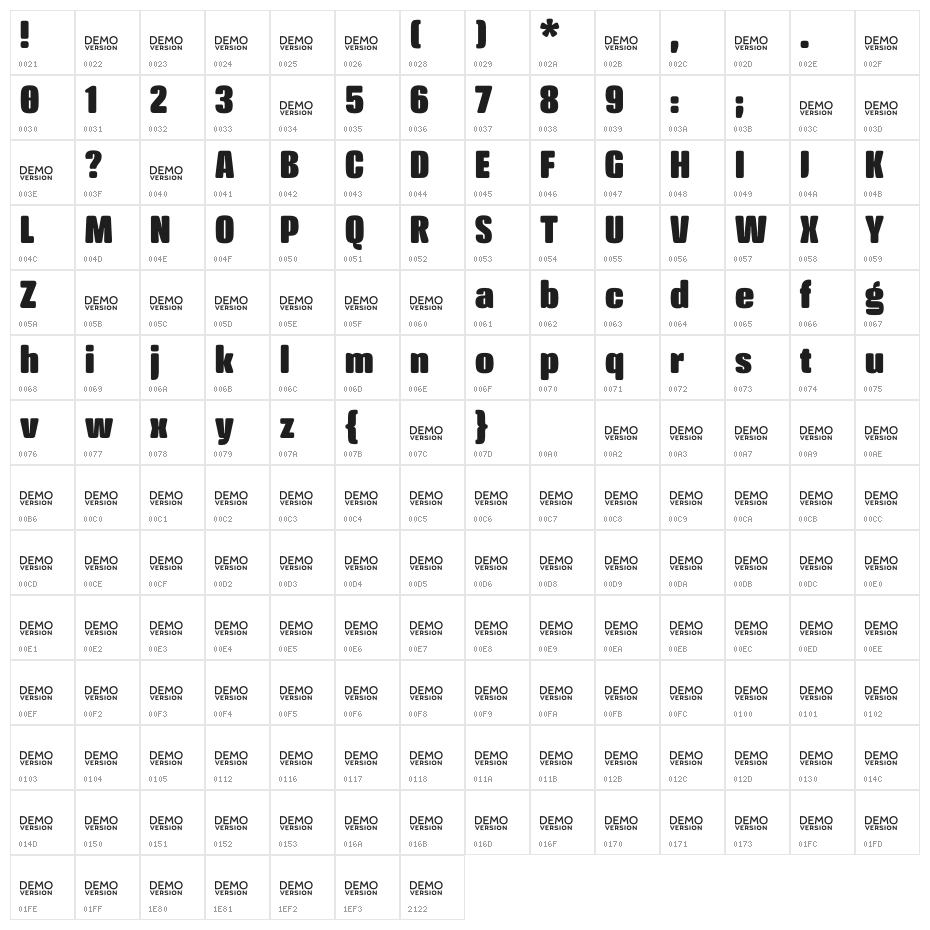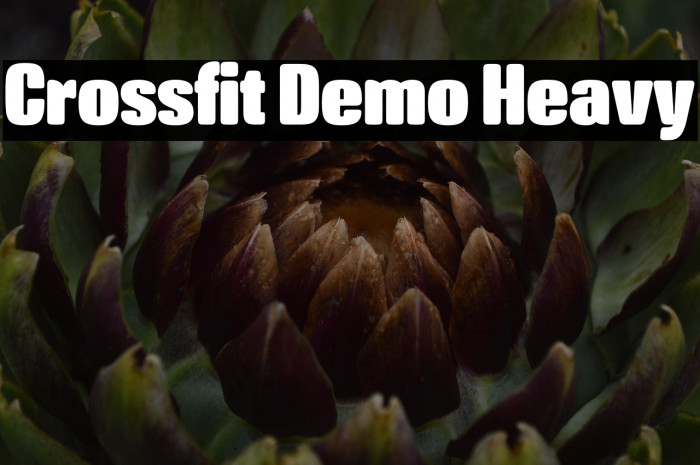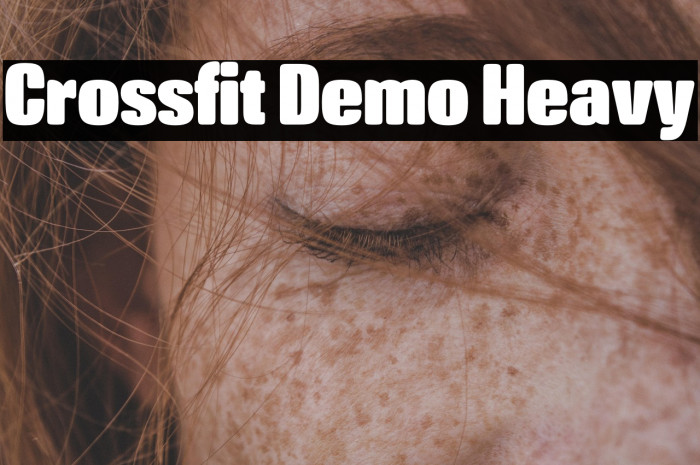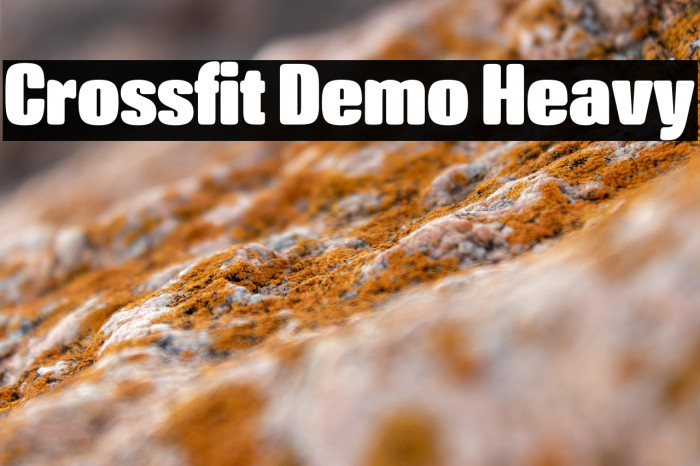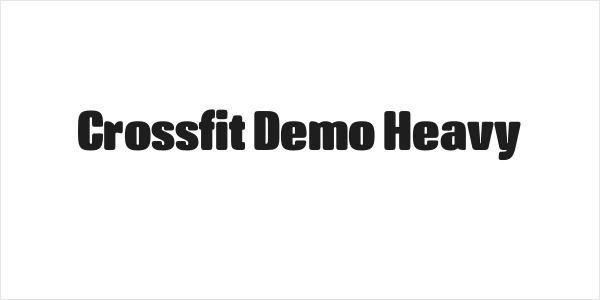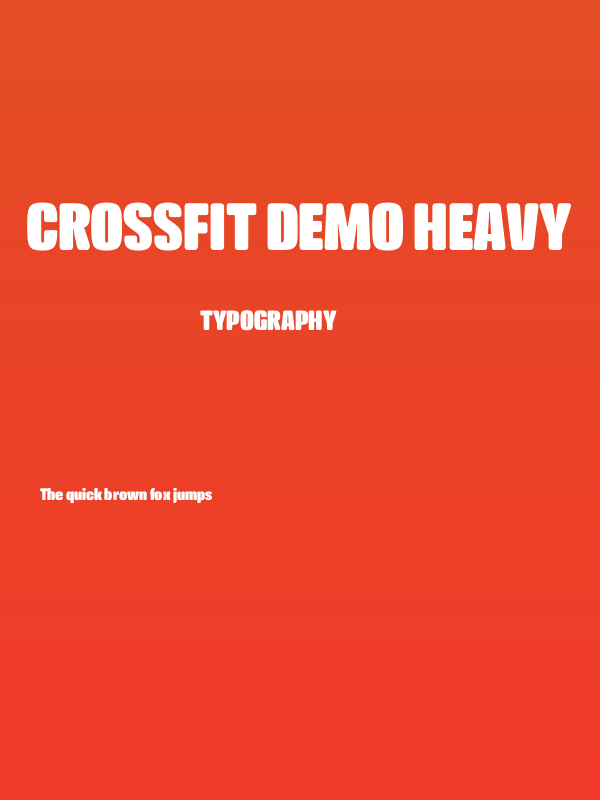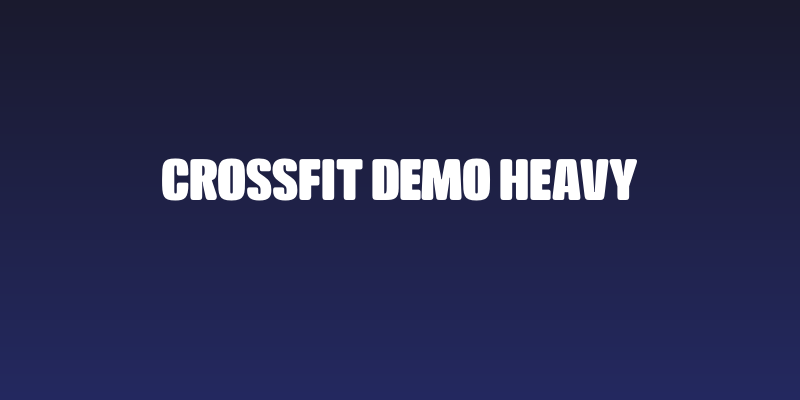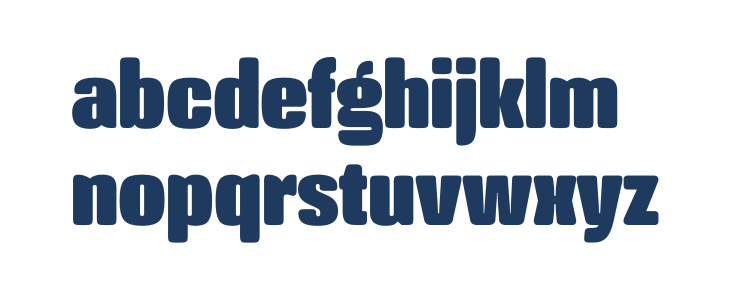
Crossfit Demo Heavy Font
Crossfit Demo Heavy Description
This font features a bold and robust design, characterized by thick, blocky letters that convey strength and impact. The uppercase and lowercase letters maintain a consistent weight, providing a uniform appearance across all characters. The numbers are equally bold, ensuring they stand out prominently. The special characters, including symbols like the exclamation mark and asterisk, are designed with the same heavy weight, making them suitable for attention-grabbing text. The overall style is modern and assertive, making it ideal for projects that require a strong visual presence.
| Proposed Projects | Ideal for branding, headlines, posters, and any design requiring a strong, impactful presence. |